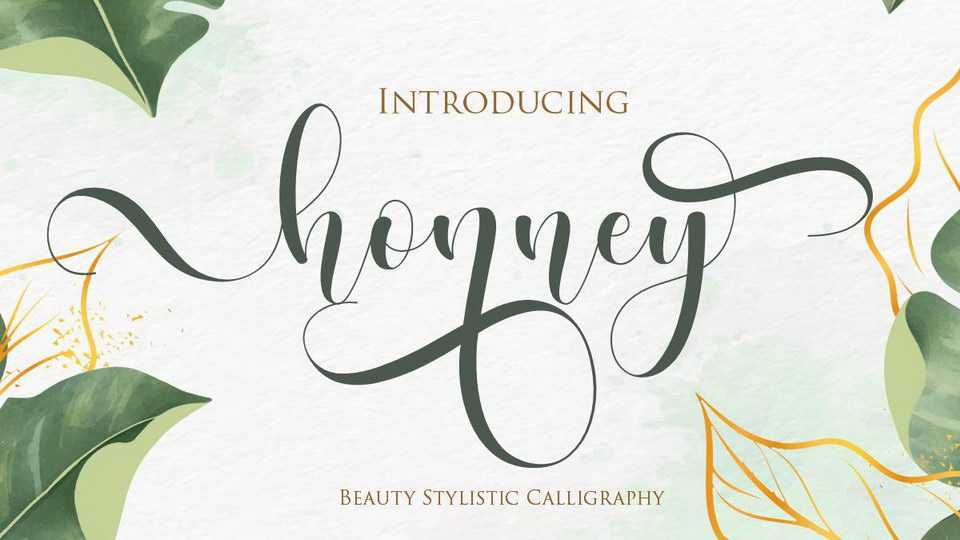
Download Honney font, an elegant and flowing handwritten typeface. Honney maintains its classy calligraphic influences while feeling contemporary and fresh.
Designer: Gilar Studio